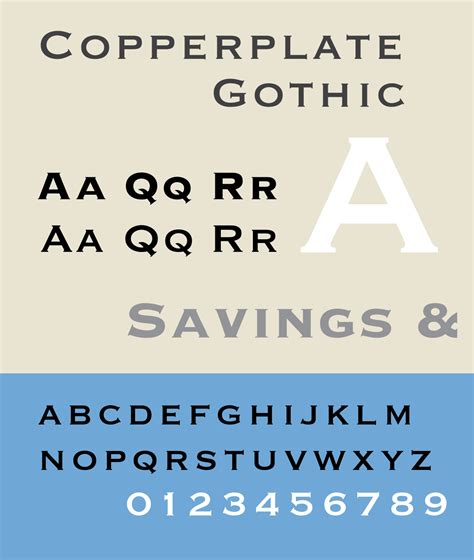
Copperplate Gothic Font Generator. Goudy and published by bitstream. Web balthazar is a contemporary copperplate gothic like serif typeface inspired by the kind of typefaces used by many bistros.